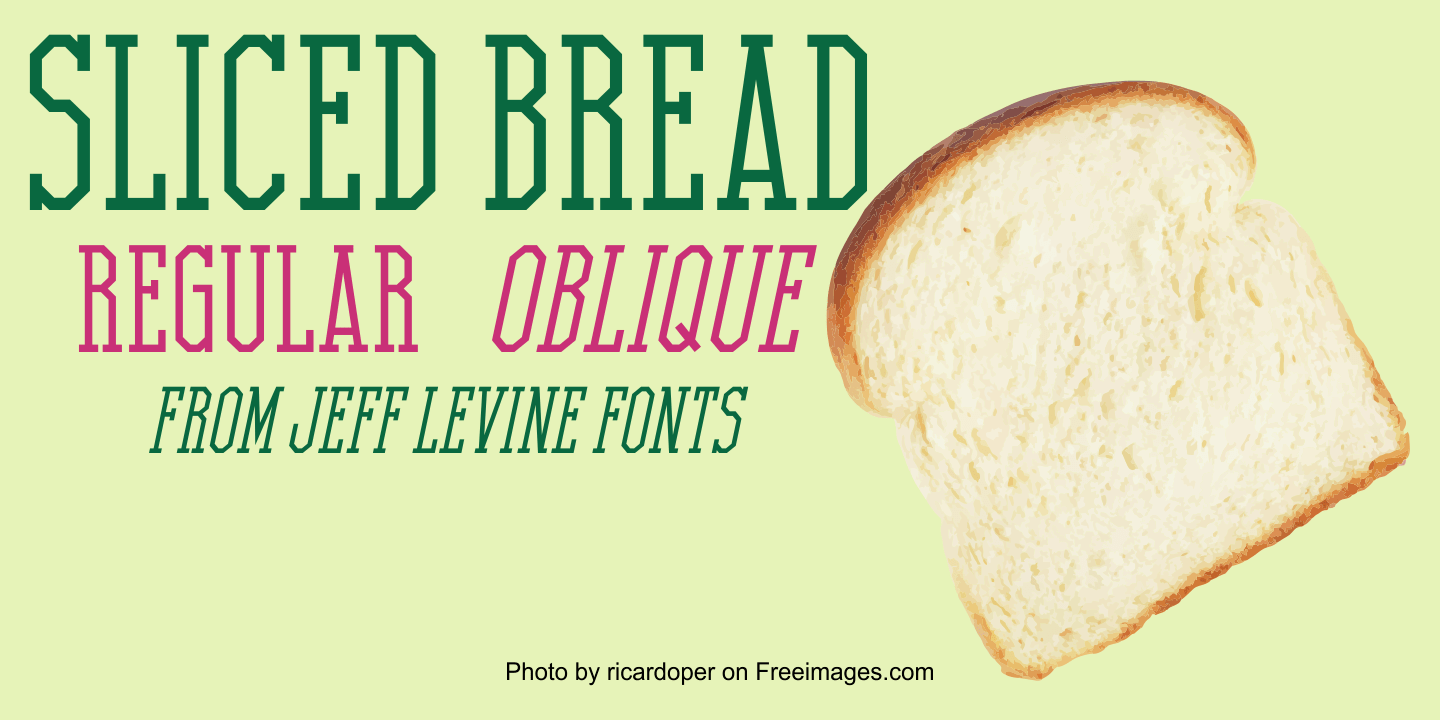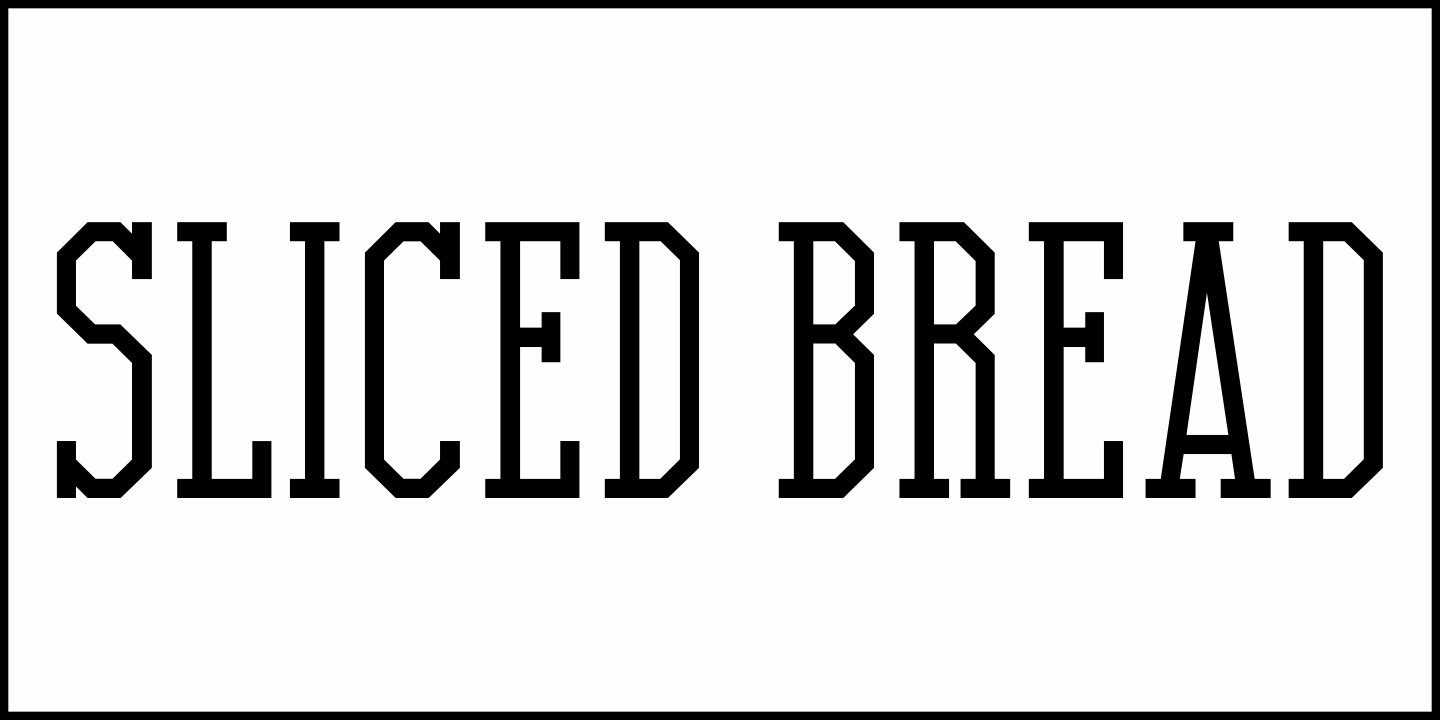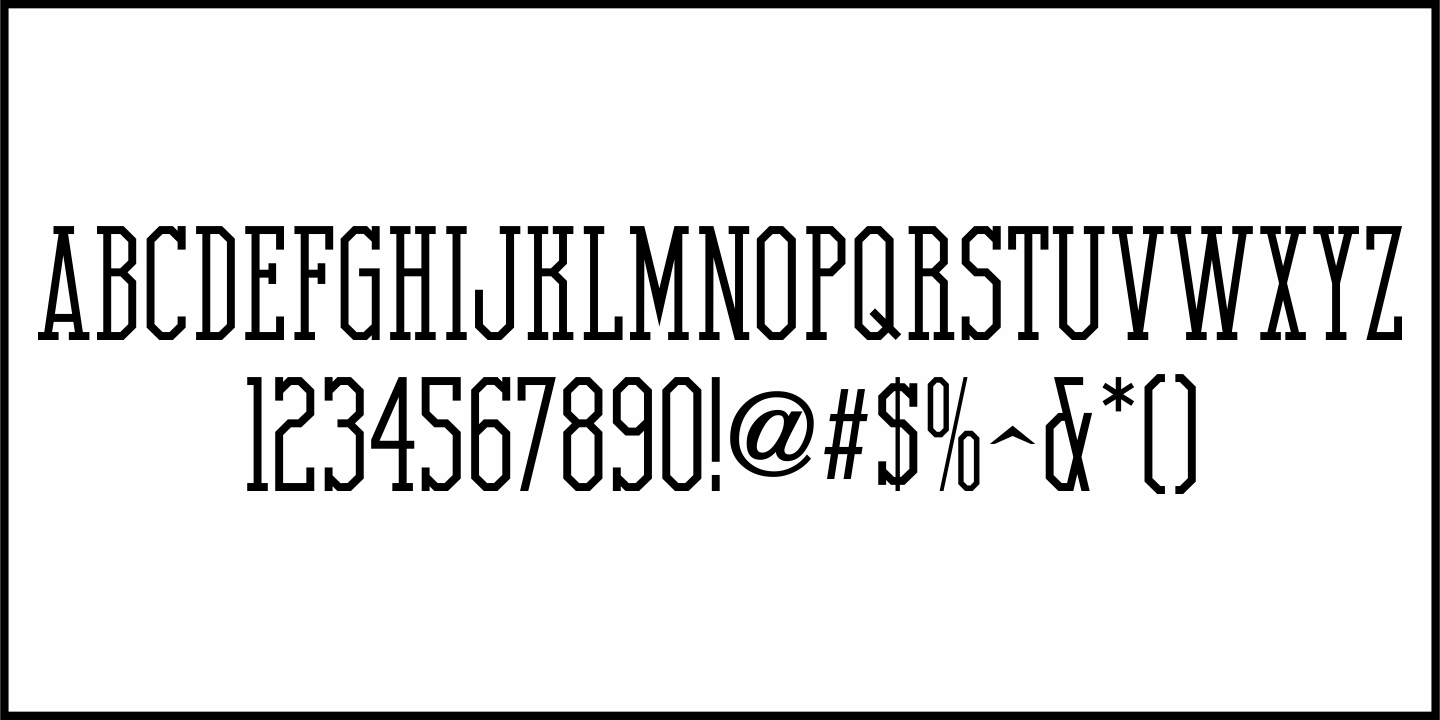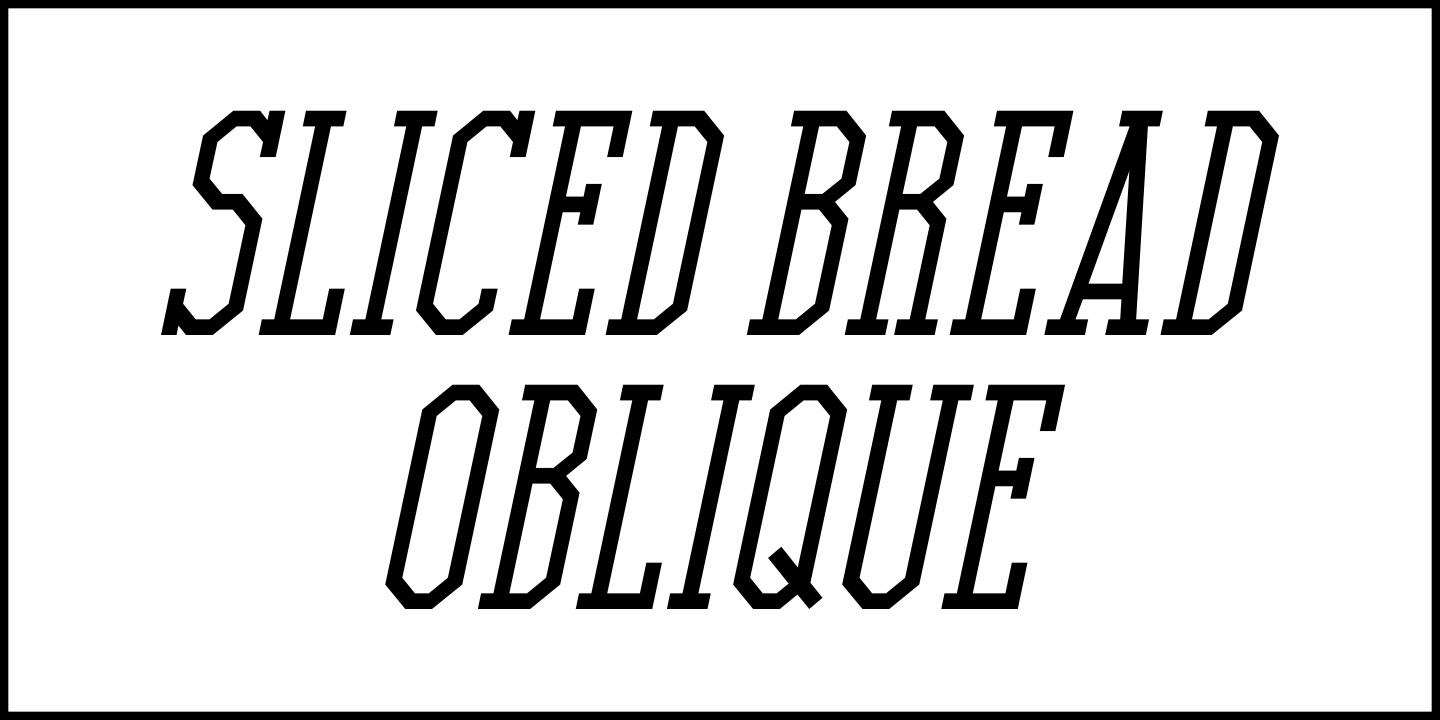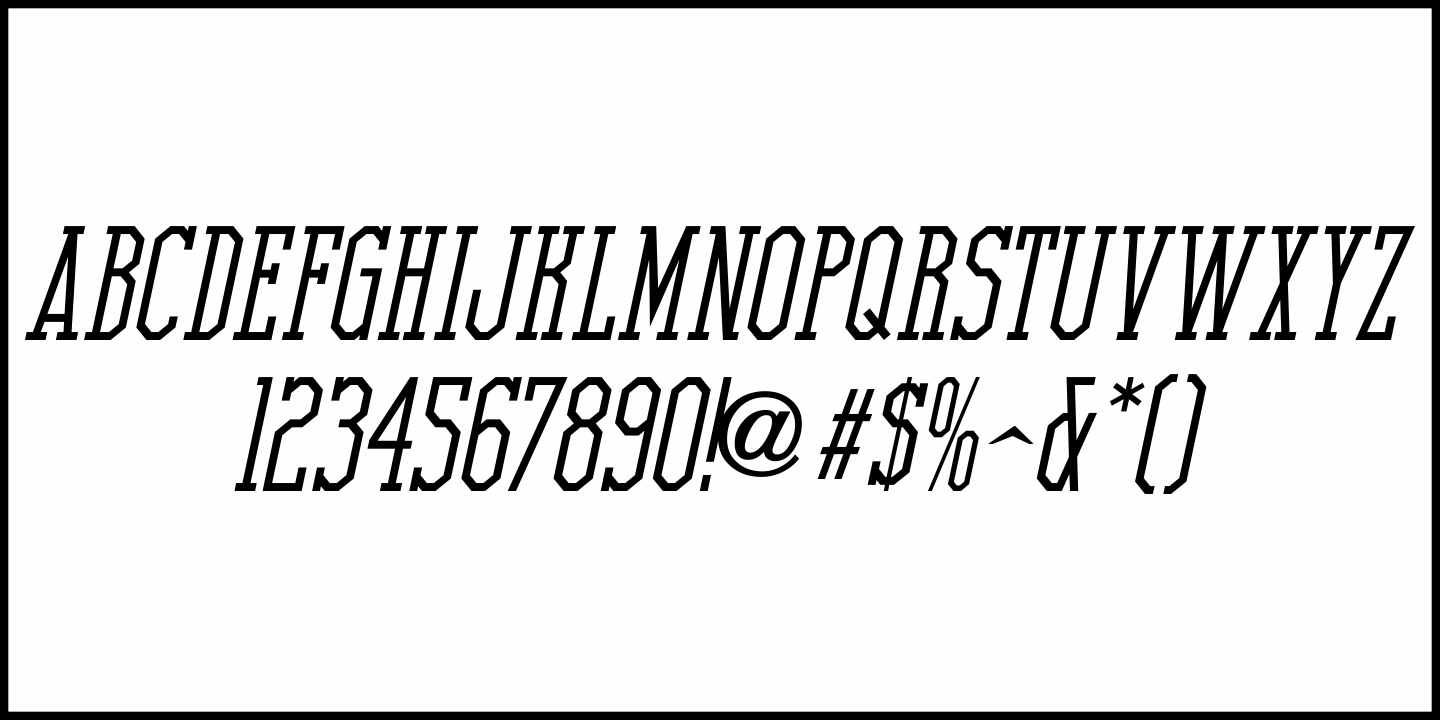
Sliced Bread
On the cover of the Sept. 1950 issue of Sponsor Magazine was a photograph featuring a package of Arnold Fine White Bread. The tall, condensed and chamfered hand lettering on this vintage bread wrapper inspired Sliced Bread JNL, which is available in both regular and oblique versions.